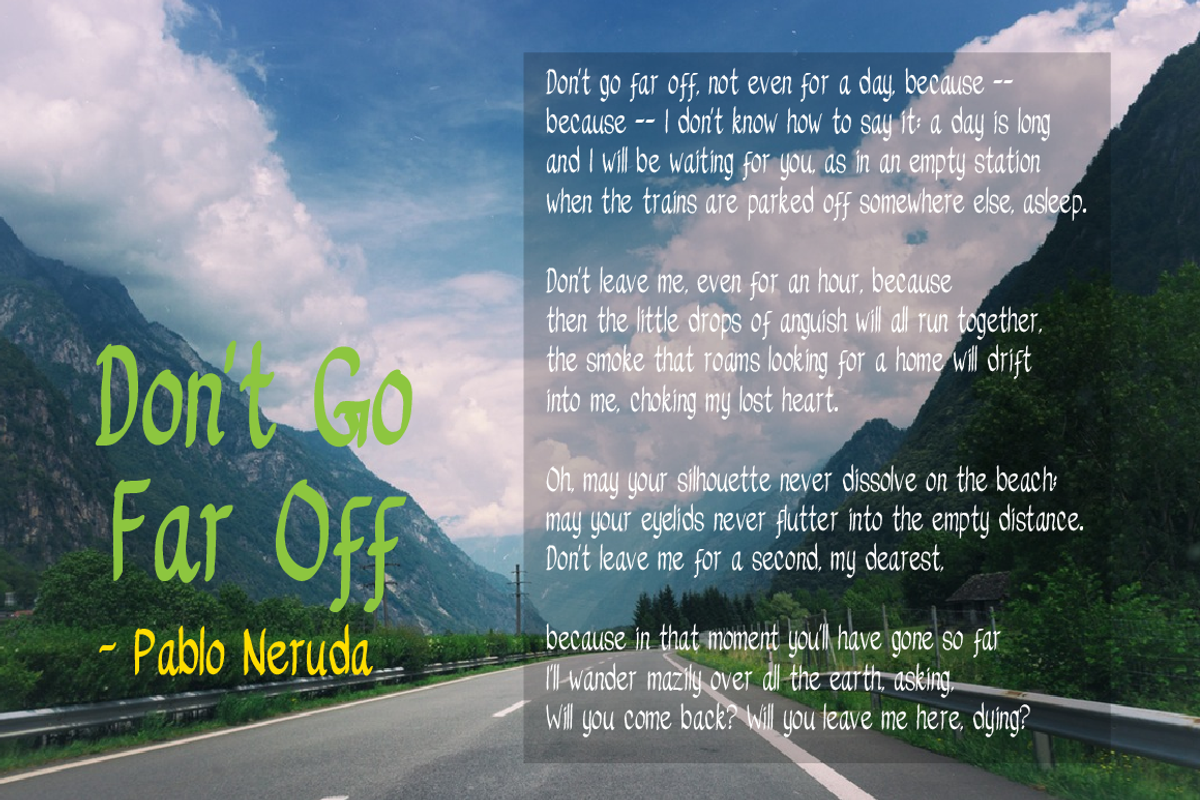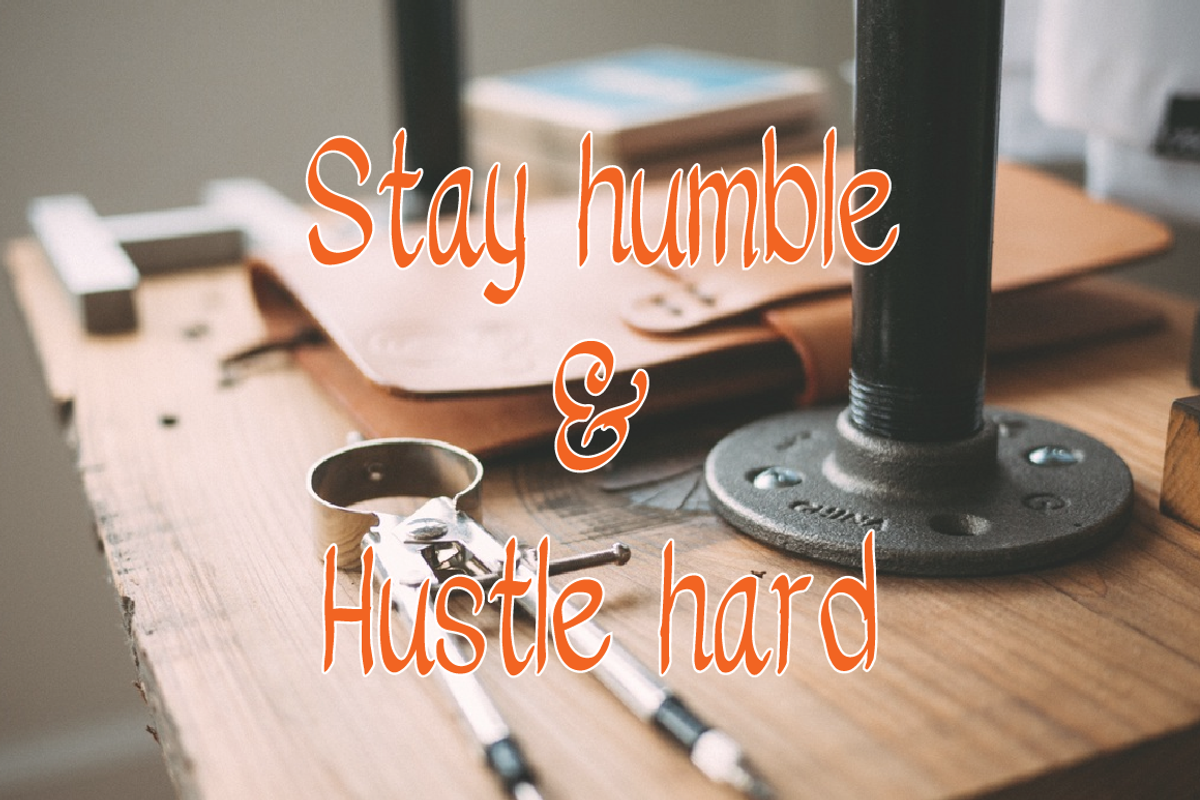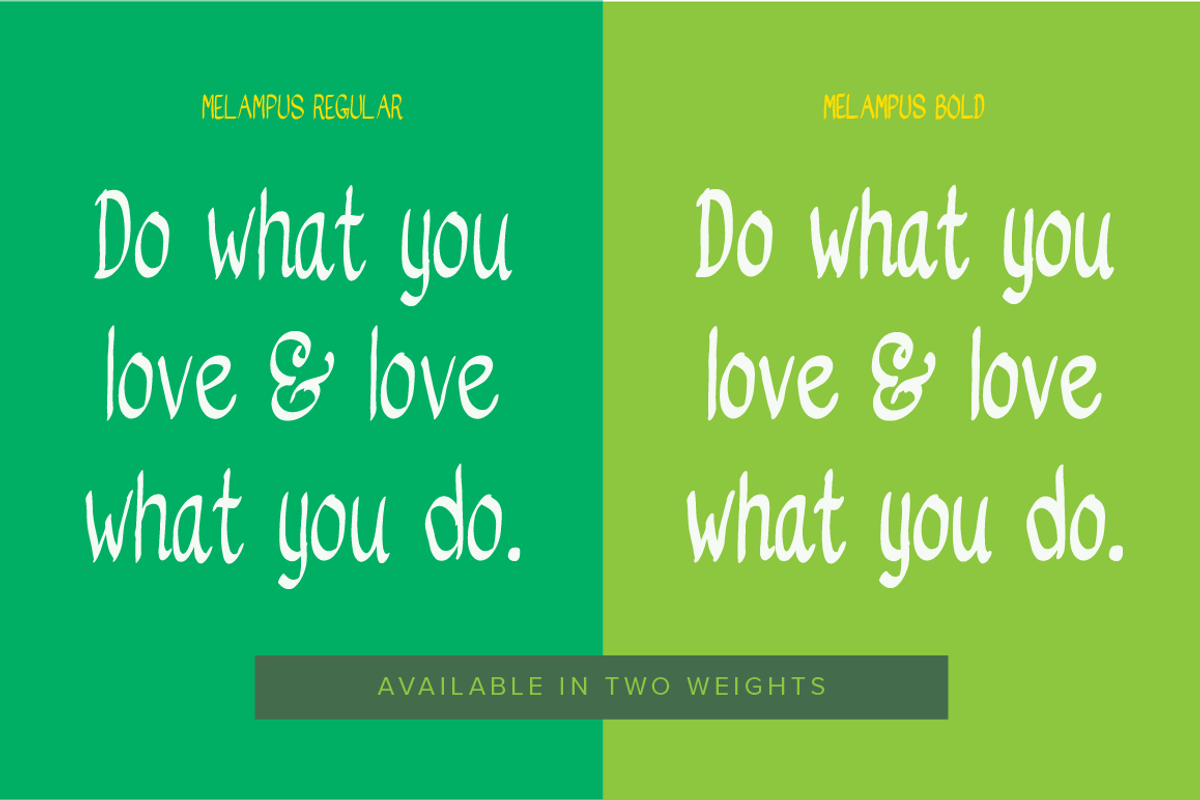
Melampus Font
Melampus Font by Niram Factory is a font selected for branding, posters, packaging, typography.
- It comes in two different weights to choose from and included upper case, lower case, numerals and more glyphs...
- Melampus Regular
- Melampus Bold
Why Melampus Font is worth a look
Melampus Font by Niram Factory fits naturally into Branding, posters, packaging, typography.